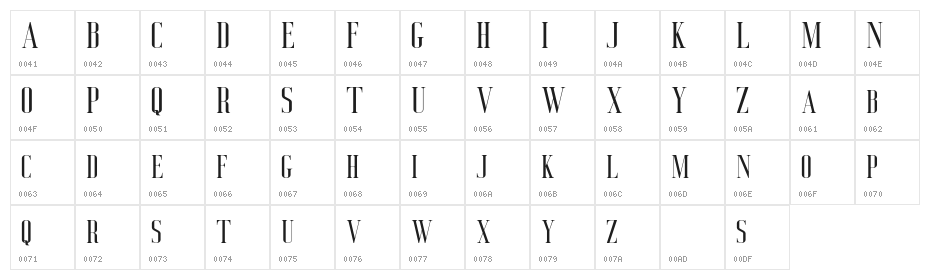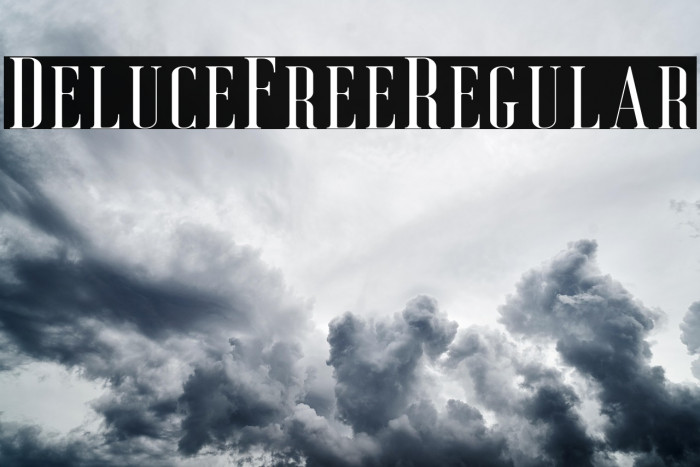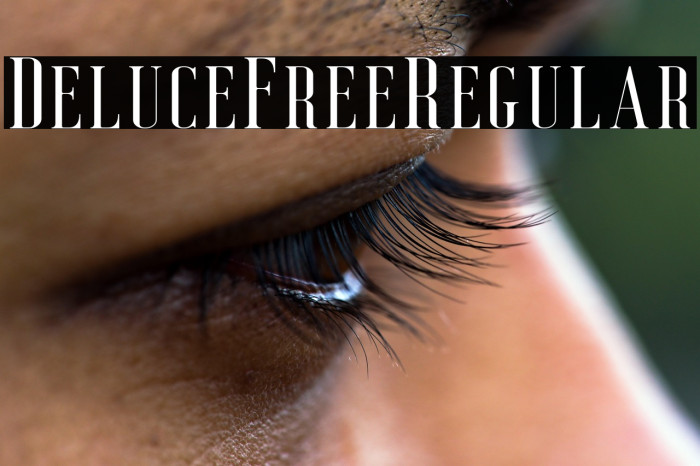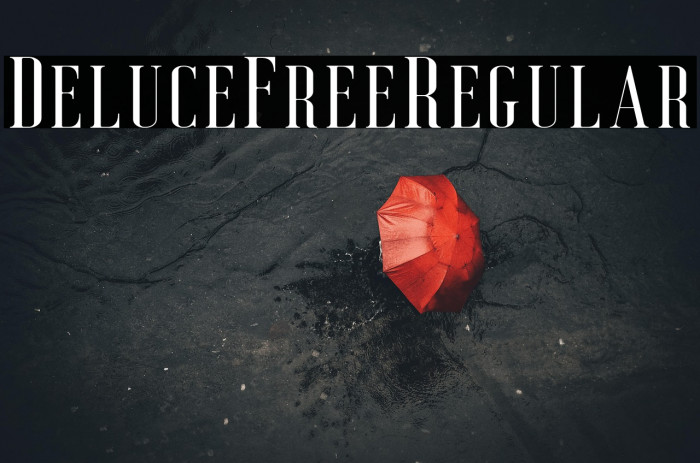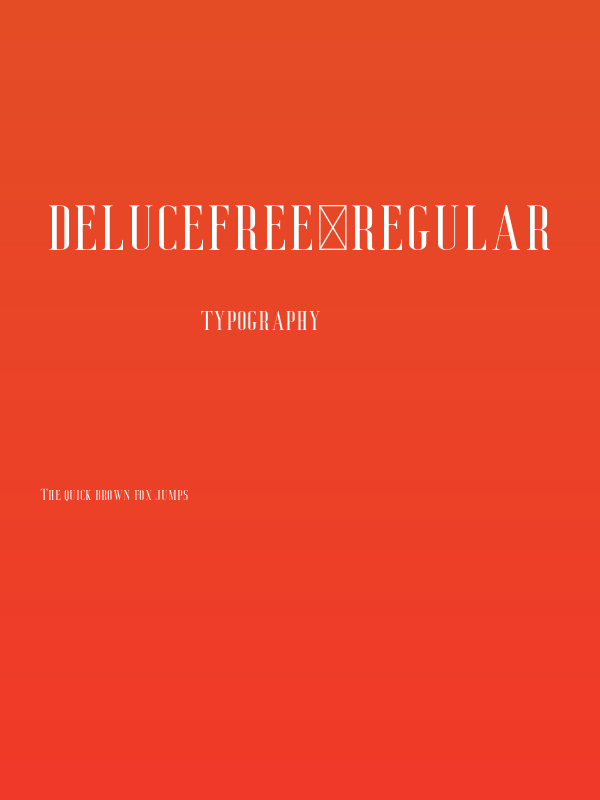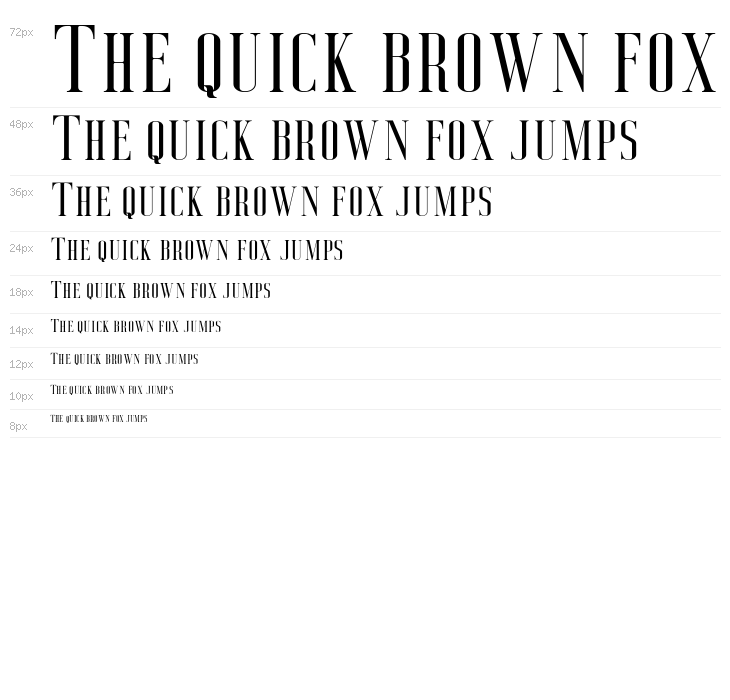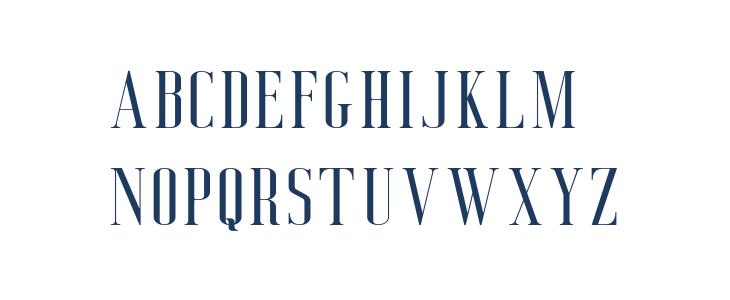
DeluceFree-Regular Font
DeluceFree-Regular Description
This font features a tall and elegant design with a high contrast between thick and thin strokes, giving it a sophisticated and refined appearance. The letters are elongated with sharp serifs, which add a touch of classic elegance. The vertical emphasis and narrow width make it suitable for creating a dramatic and impactful visual presence. The overall style is reminiscent of vintage typography, yet it maintains a modern sensibility that can adapt to various design contexts. The uppercase letters are particularly striking, with their elongated forms and pronounced serifs, while the lowercase letters maintain a consistent style that complements the uppercase set. This font is ideal for projects that require a touch of elegance and sophistication, such as luxury branding, editorial design, and high-end packaging.
| Width | Condensed |
| Overall Style | Vintage, Modern |
| Proposed Projects | Luxury branding, editorial design, high-end packaging, wedding invitations, and fashion magazines. |